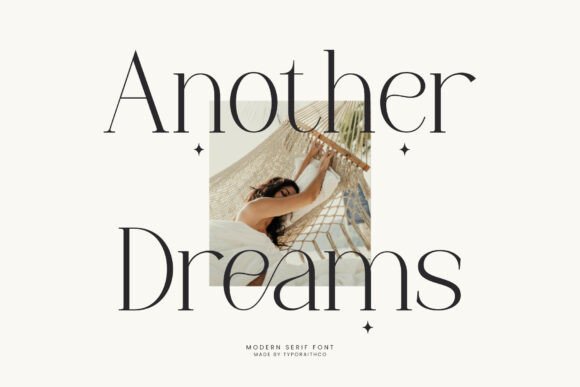
The Dreamy Elegance of Another Dreams Font
Have you ever been in the middle of a design project, and suddenly, the font just isn’t working? You’re trying to convey a sense of elegance and whimsy, but the typography falls flat. I recall a particularly frustrating experience while working on a wedding stationery set; my client wanted something that captured the ethereal beauty of a dreamy summer evening. That’s when I stumbled upon Another Dreams, a modern serif display font that instantly elevated my design.
A First Impression: What I Love About Another Dreams
Another Dreams is characterized by its tall, slender stems and artistic, sweeping curves. This font is a game-changer for designs that need to feel light, airy, and undeniably chic. Here are a few things I adore about it:
- ✨ Elegant and refined aesthetic
- ✅ Highly legible, even at smaller sizes
- 💫 Supports OpenType features for added versatility
- 🎨 Artistic flair perfect for creative projects
An Honest Review: A Few Quirks to Consider
No font is perfect, and Another Dreams is no exception. A few things to keep in mind:
- 🤔 May not be the best choice for body text due to its slender stems
- ⚠️ Limited availability of certain OpenType features in some software
The Story Behind Another Dreams
While the origins of Another Dreams are shrouded in mystery, it’s clear that the designer was inspired by the fleeting beauty of dreams. The font’s sweeping curves and slender stems evoke a sense of ethereal wonder, making it perfect for designs that need to feel light and airy.
| Font Name | Another Dreams Font |
| Author | Typoraith Co |
| What is Another Dreams best used for? | Fragrance branding, dreamy wedding stationery, boutique identity design, and social media quotes for influencers. |
| Is Another Dreams suitable for body text? | While it’s highly legible, Another Dreams’ slender stems make it better suited for display text or headings. |
| Does Another Dreams support OpenType features? | Yes, Another Dreams supports OpenType features, including stylistic alternates and glyphs. |